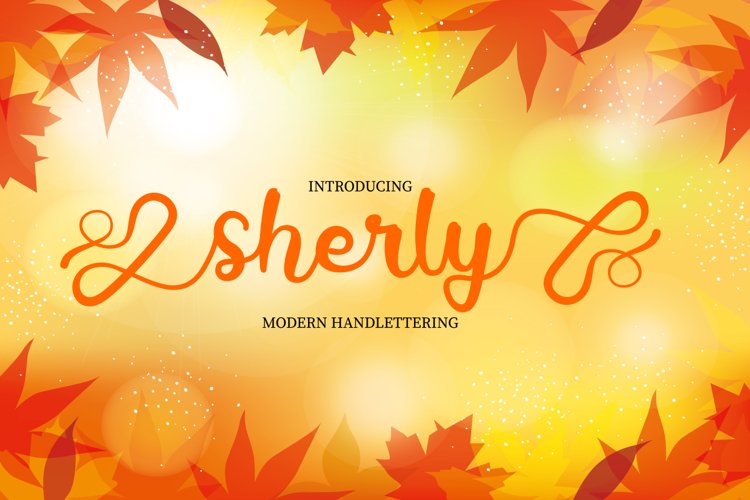
Sherly is an elegant and flowing handwritten font. It is PUA encoded which means you can access all of the glyphs and swashes with ease! It features a varying baseline, smooth lines, gorgeous glyphs and stunning alternates. It maintains its classy calligraphic influences while feeling contemporary and fresh. Fall in love with Sherly and bring your projects to the highest levels!